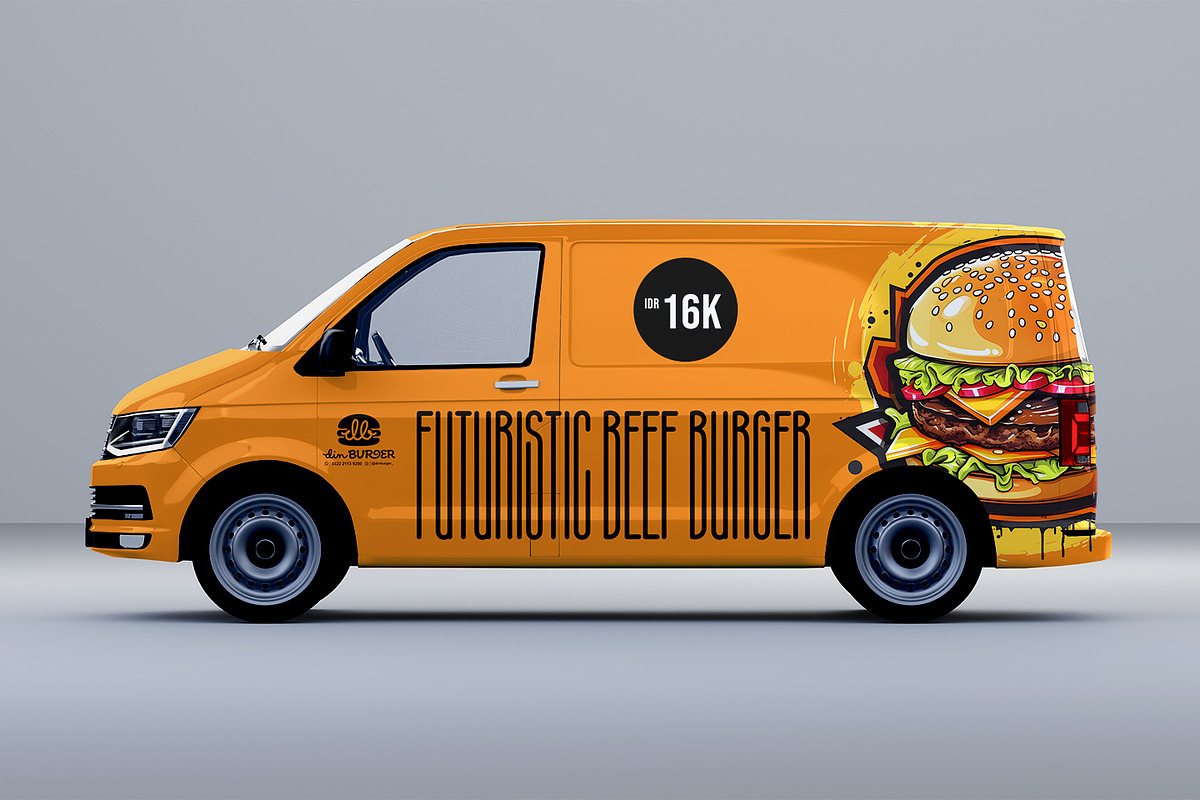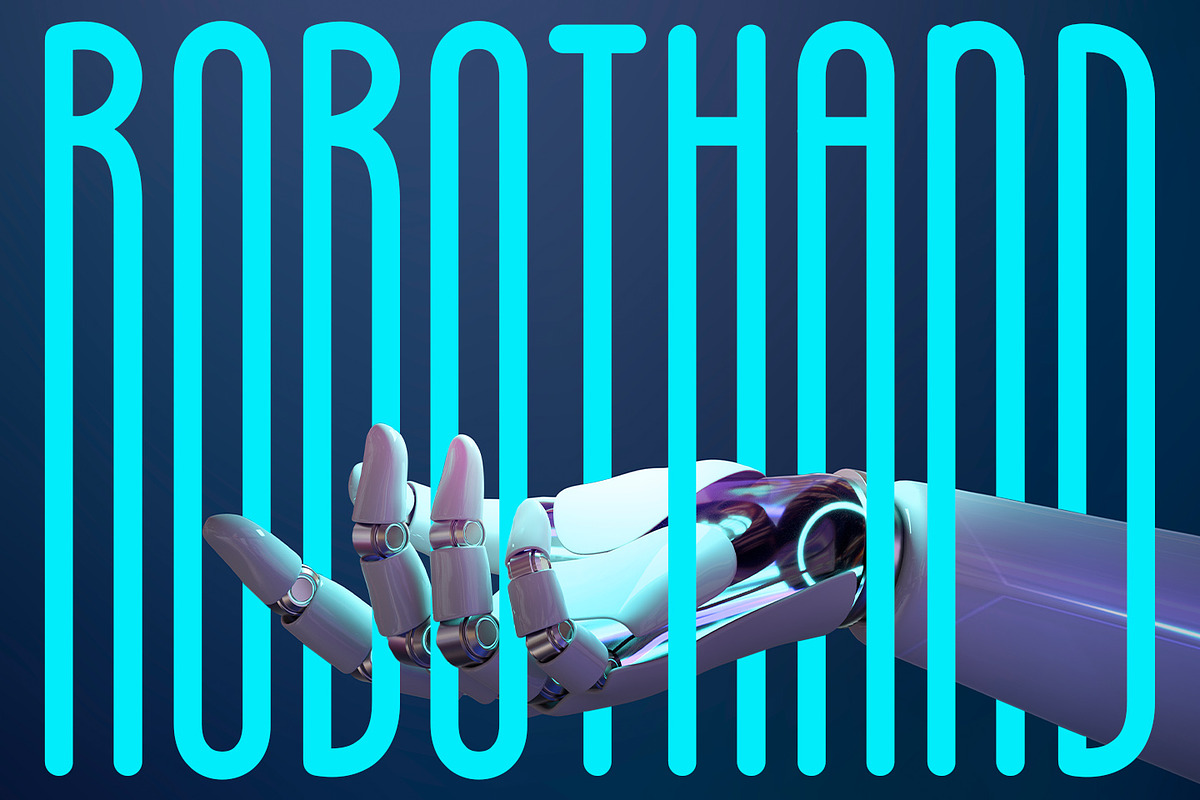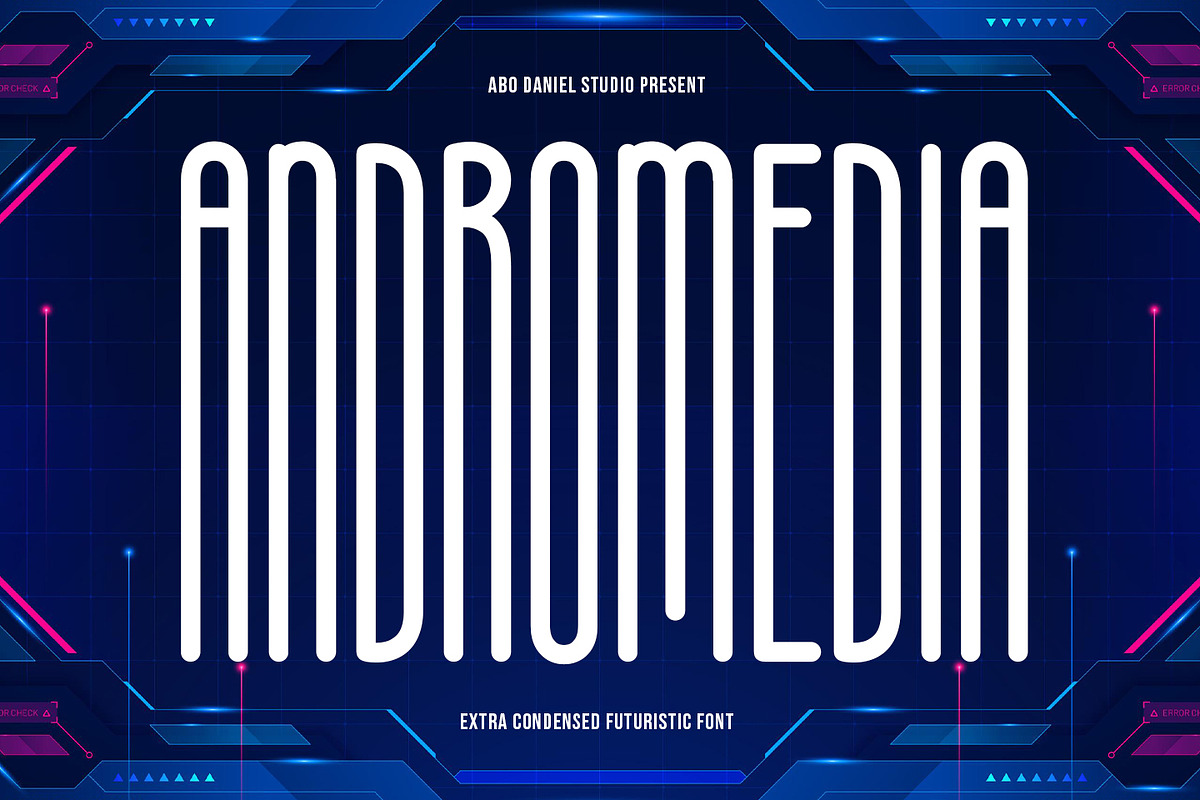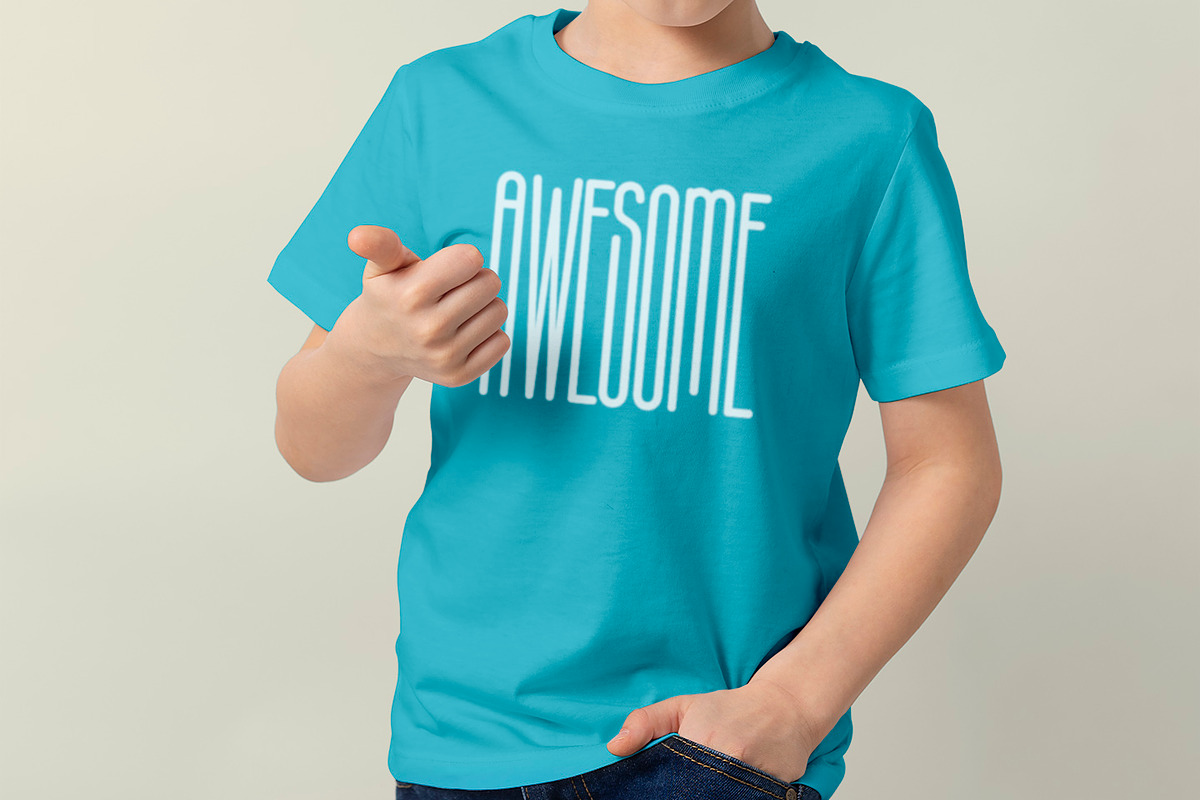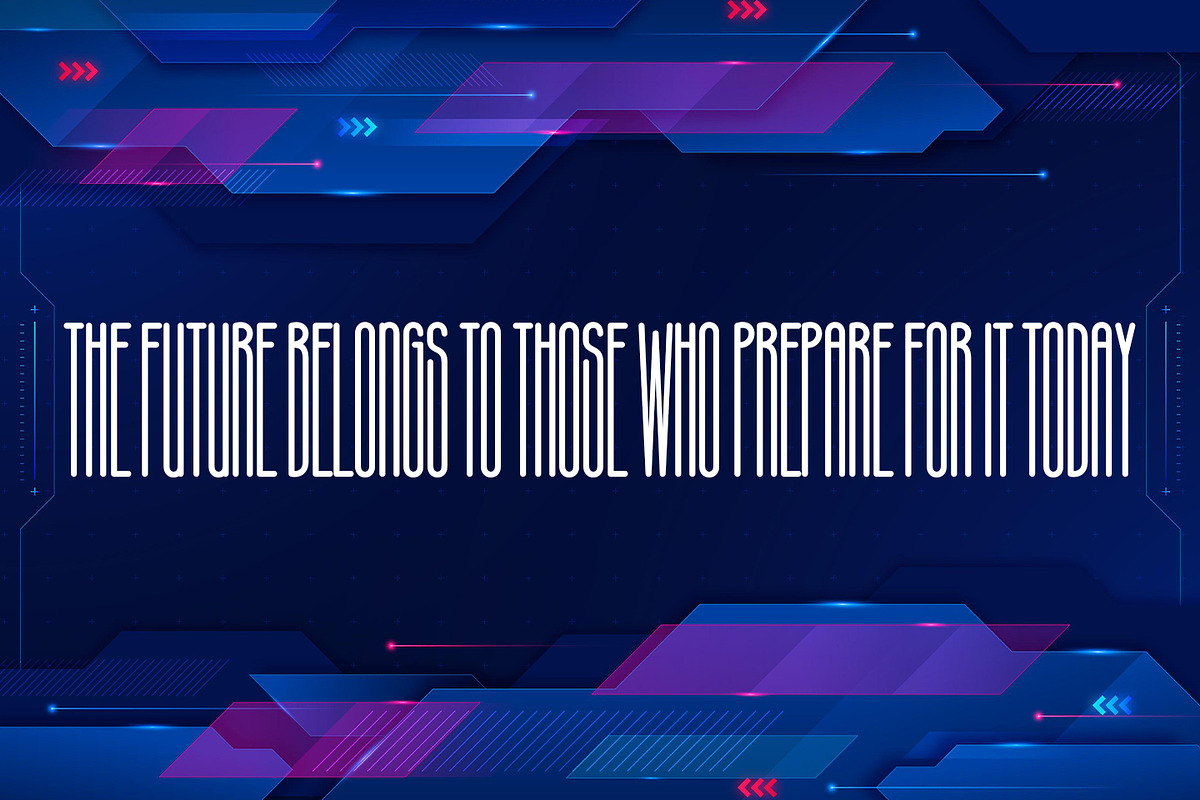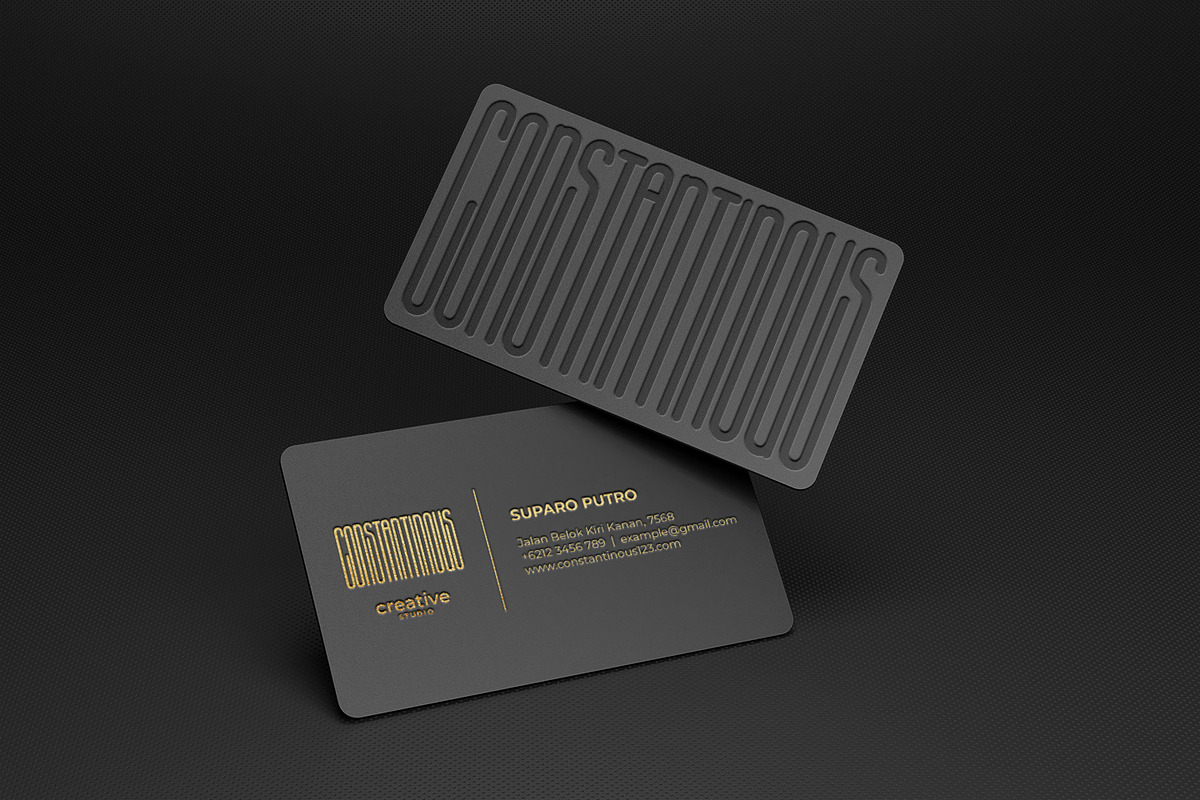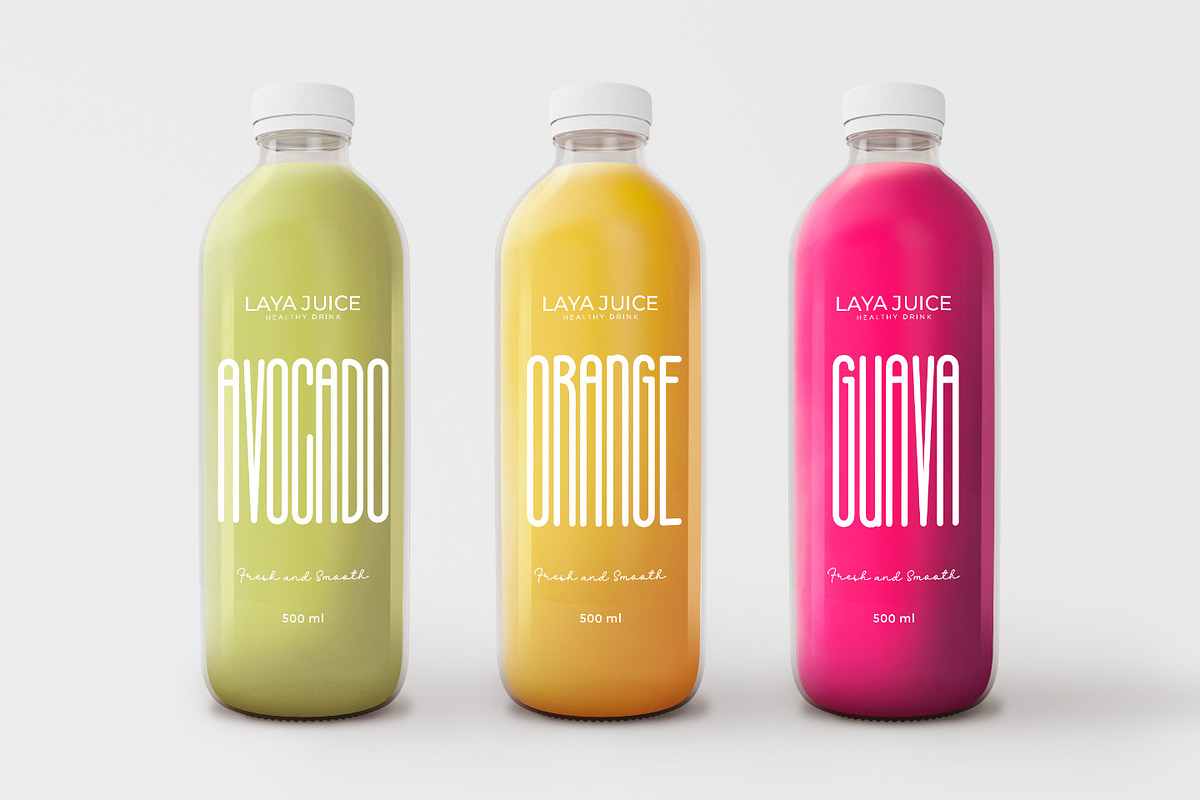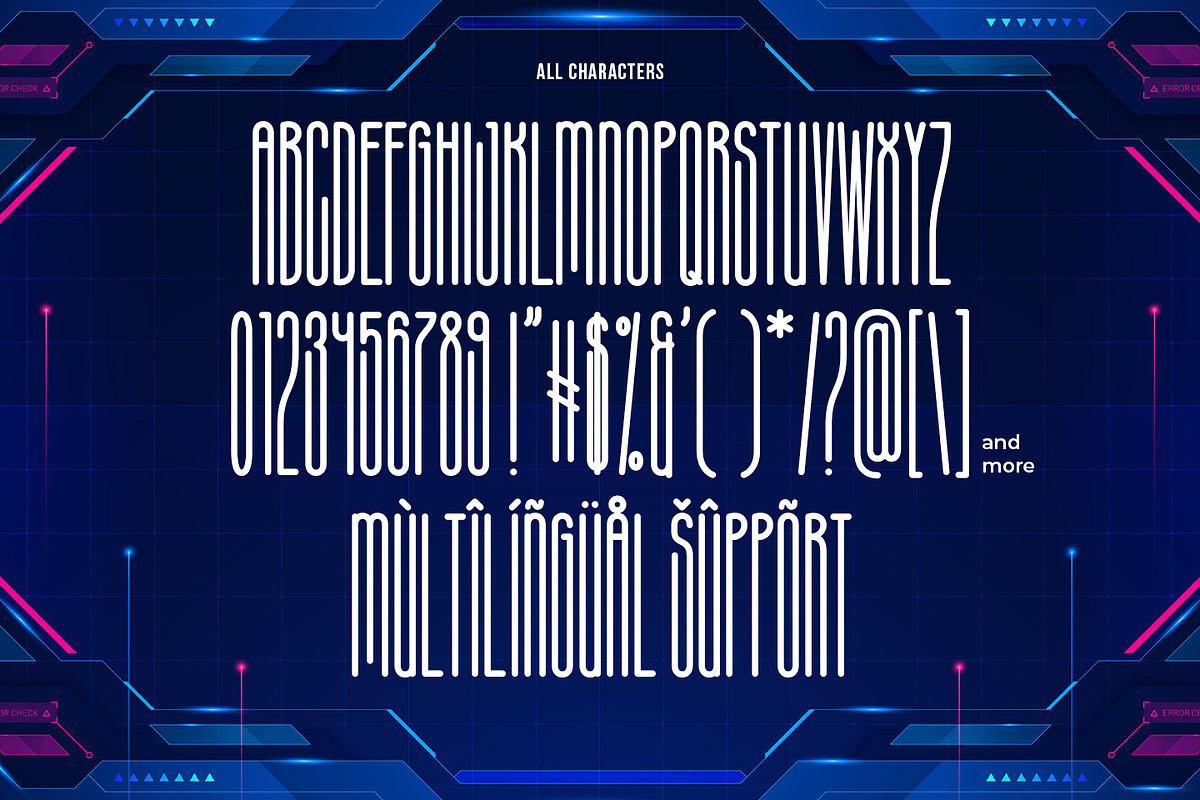
Andromedia
introducing
ANDROMEDIA -extra-condensed futuristic font-
ANDROMEDIA is great for branding, packaging, quotes, logos, t-shirt designs, tote bag designs, cards, banners, social media, and more.
- All Uppercase
- Numeral